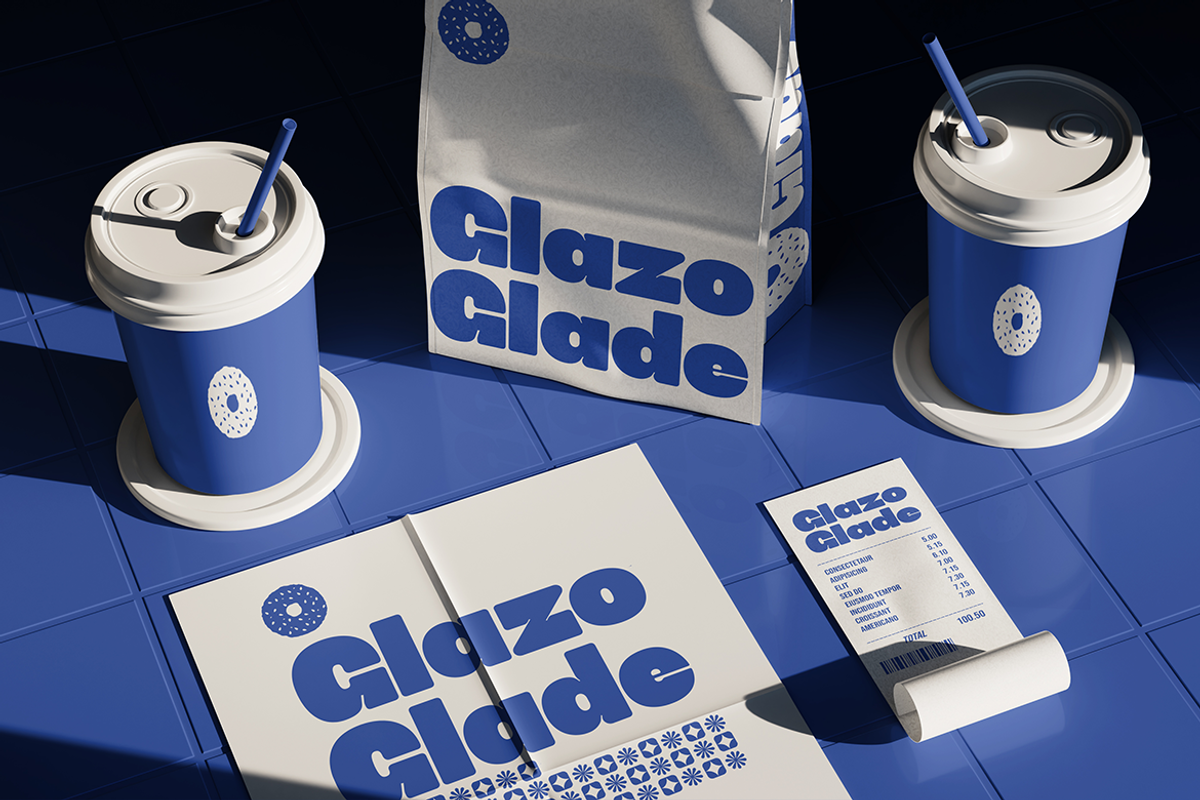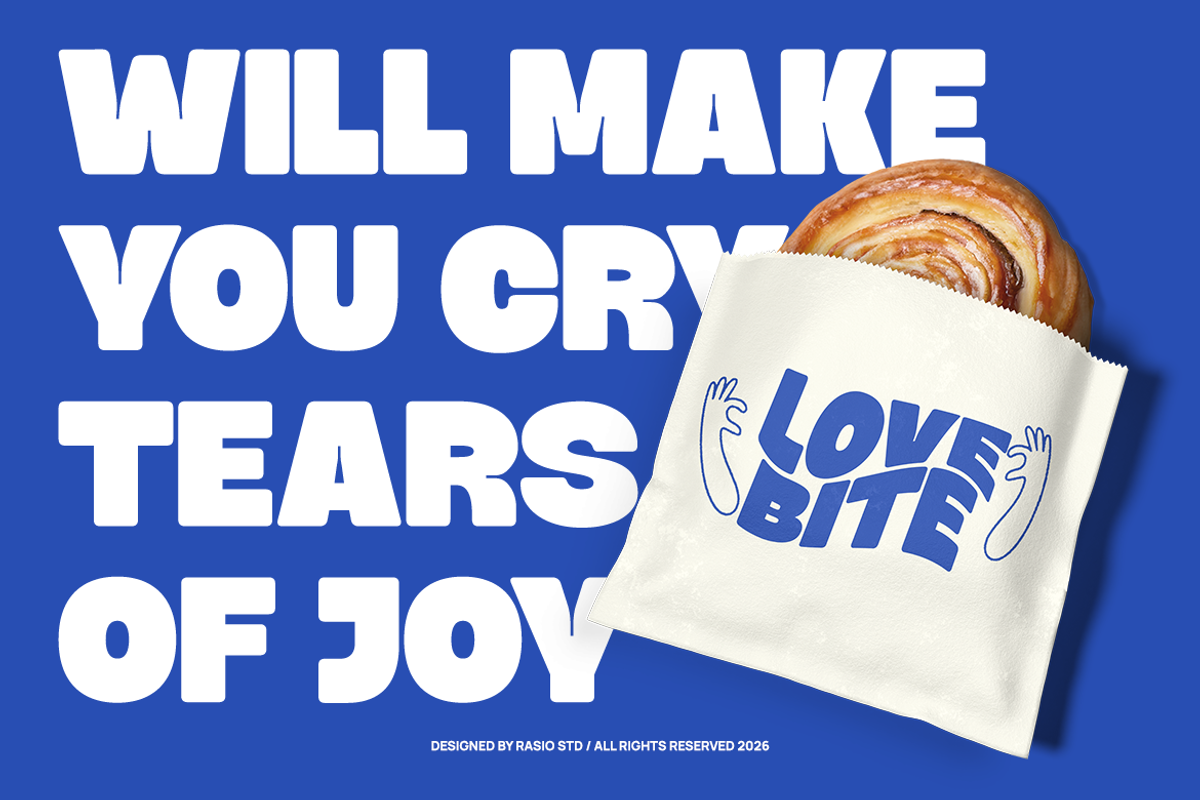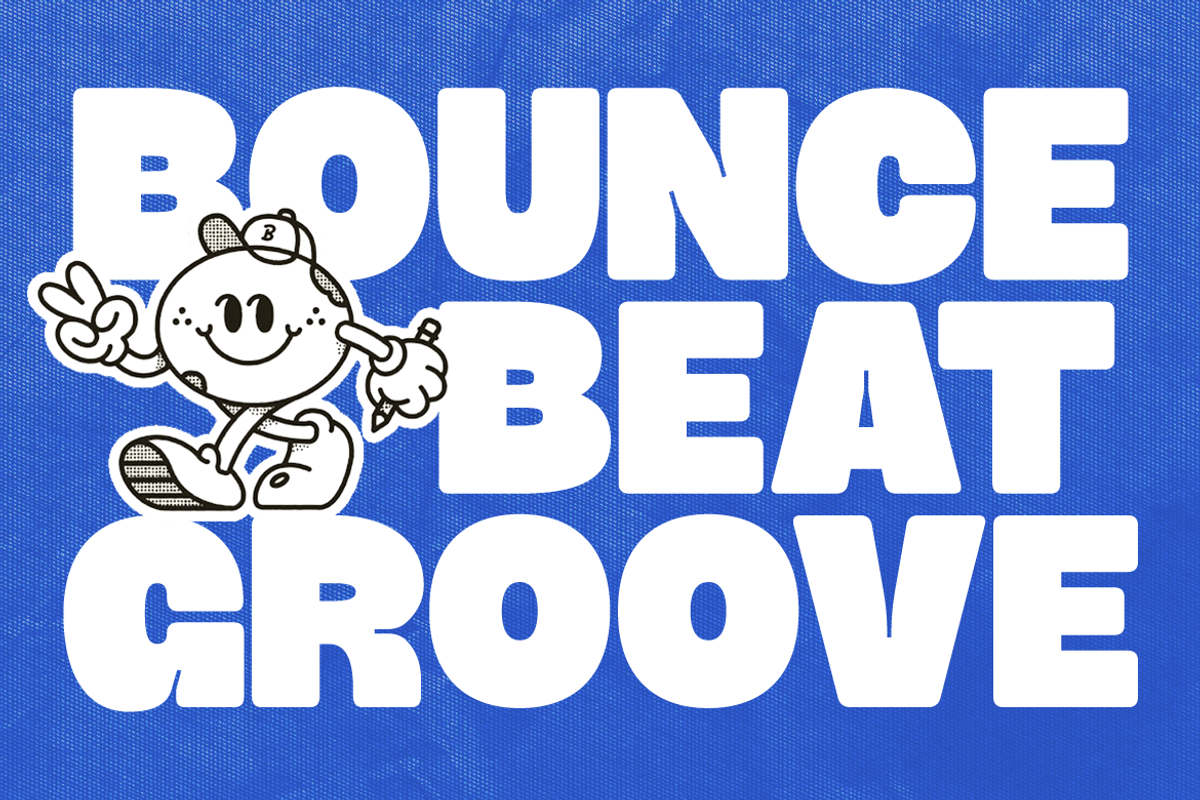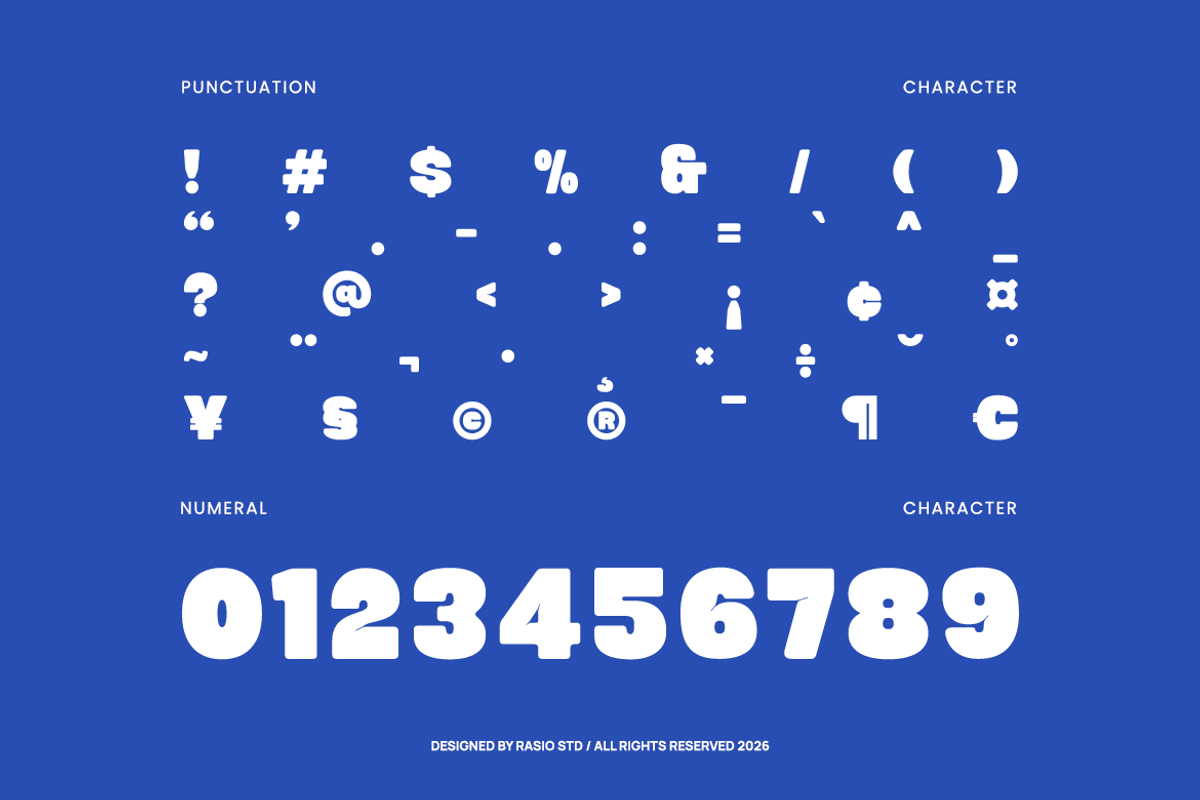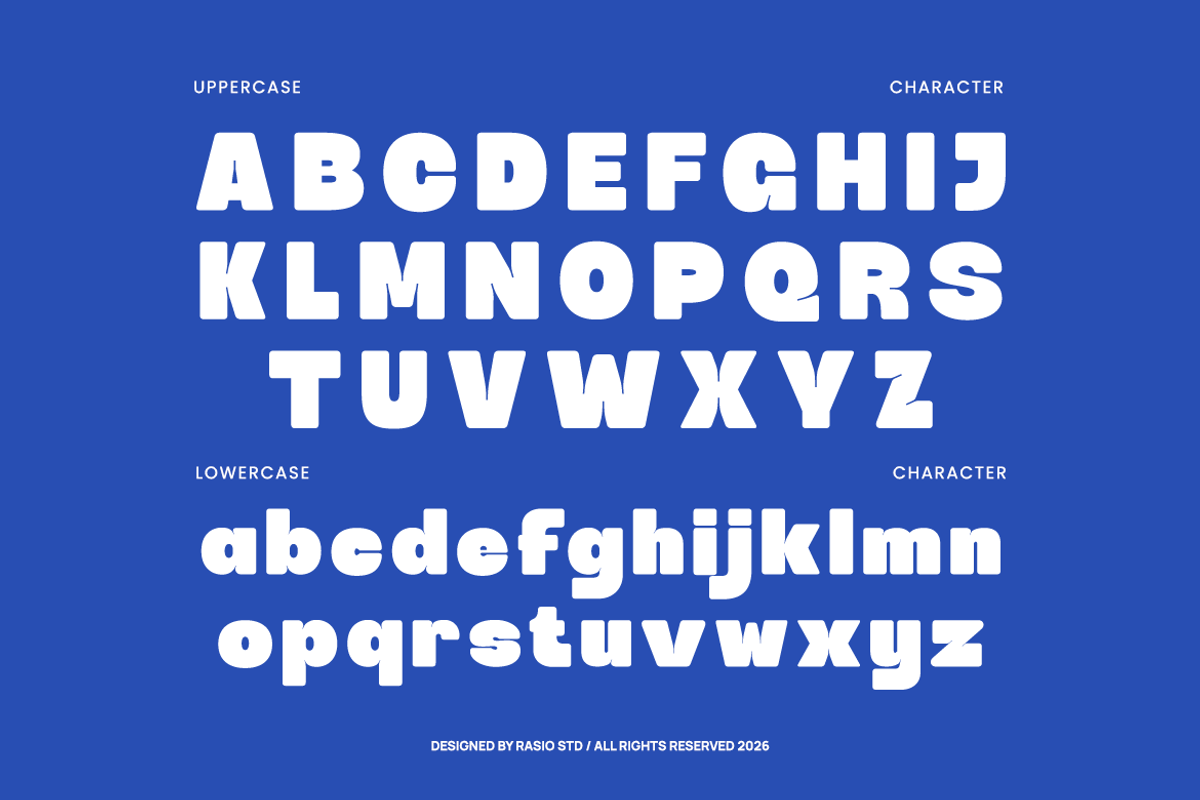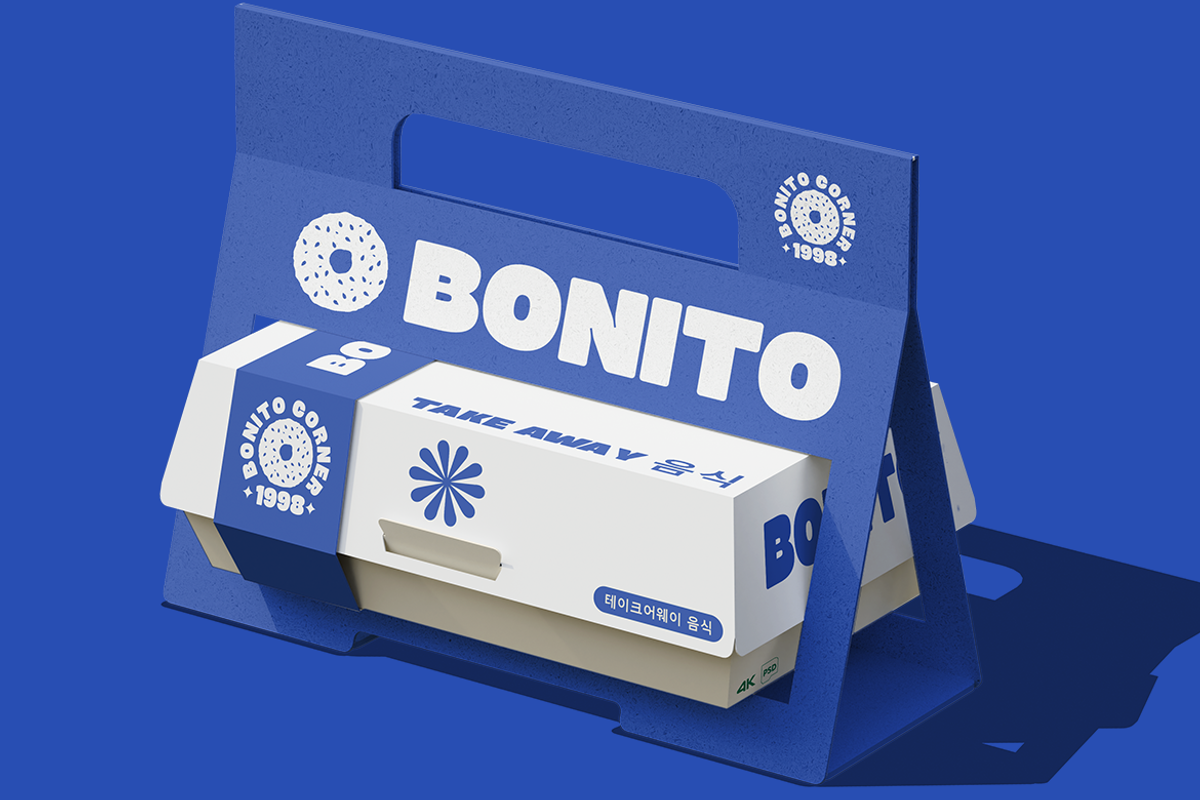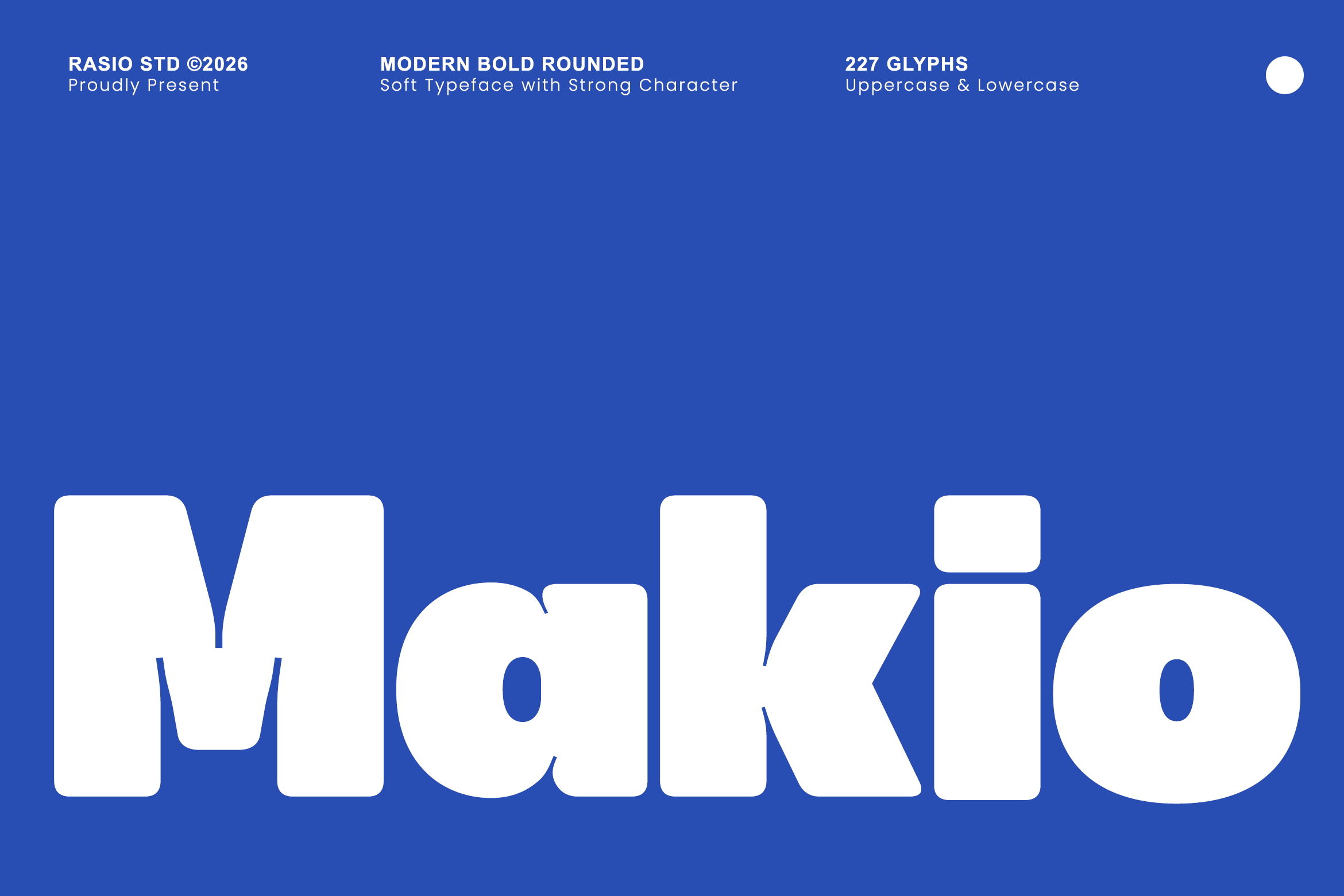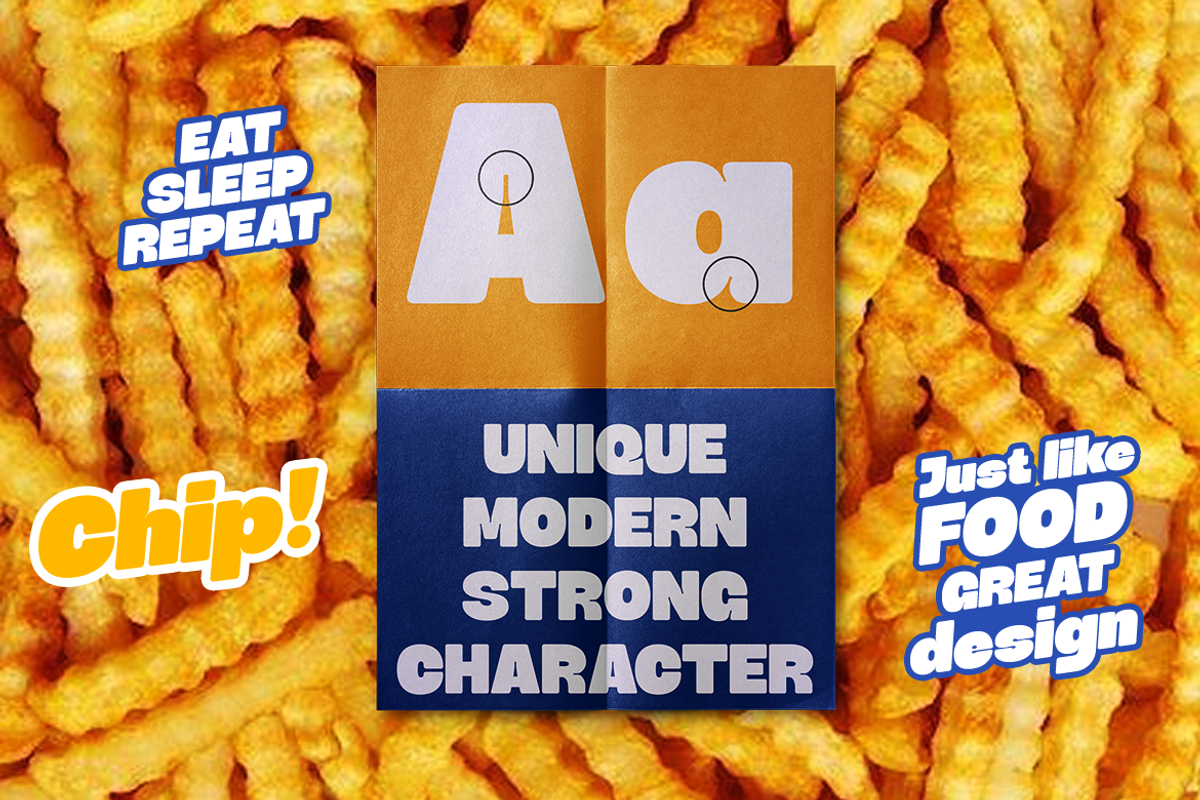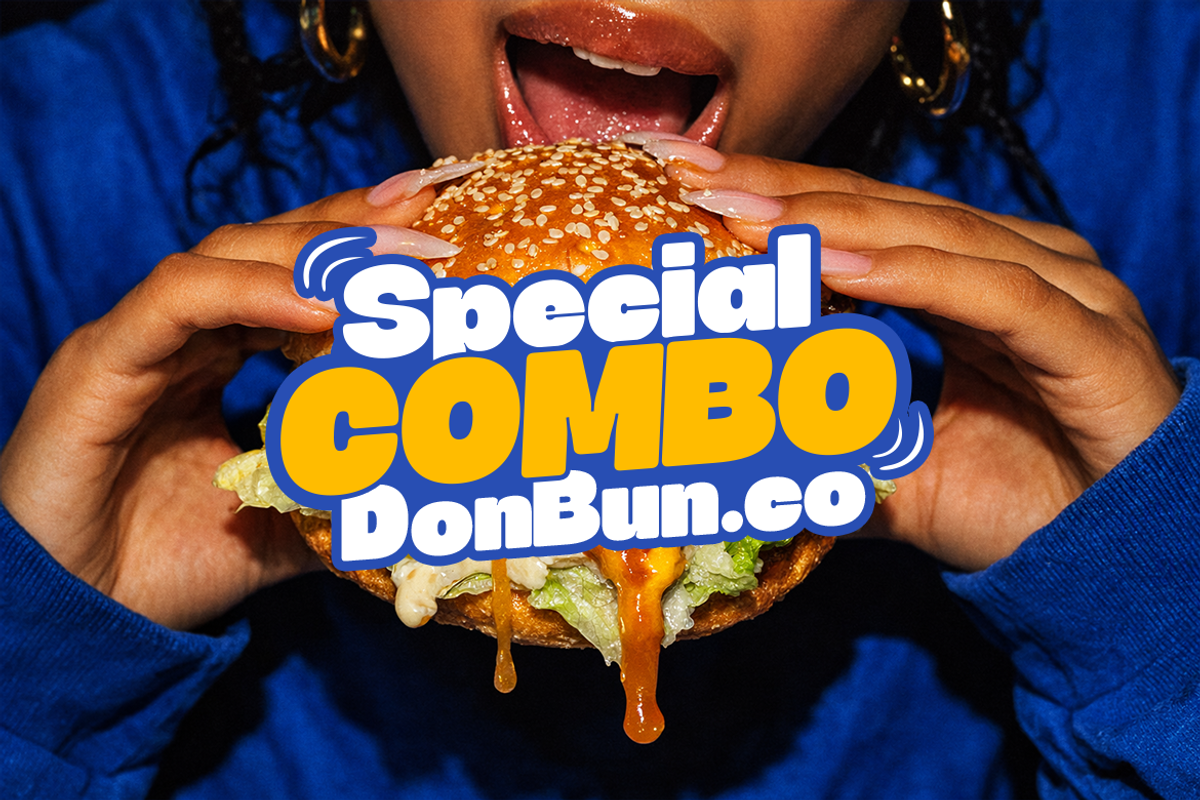
Makio Modern Bold Rounded Font
Makio showcases a bold rounded display style with soft curves and strong visual weight. The letterforms feature smooth edges, chunky proportions, and playful geometry that create a friendly and expressive appearance. Its consistent thickness and compact spacing enhance readability while maintaining a fun and modern character. Includes uppercase, lowercase, numerals, punctuation.
Relevance and Use Cases is perfect for fast food branding, playful logos, cartoon illustrations, toy packaging, game titles, social media content, poster designs, merchandise graphics, sticker designs, comic visuals, YouTube thumbnails, and fun creative projects that need a bold and friendly typographic style.
- Bold rounded structure with soft, cushion-like letterforms
- Thick stroke weight for strong visual presence and impact
- Smooth curves and fully rounded terminals for a friendly tone
- Playful geometric proportions with balanced consistency
- Compact spacing optimized for bold headlines and short text
- Kids branding and playful brand identity systems
- Game design, mobile game UI, and entertainment visuals
- Toy packaging, product labels, and fun merchandise design
- Cartoon illustrations, comics, and character-based projects
- Social media content, posters, and eye-catching promotional graphics
Create fun eye-catching designs with Makio a bold rounded font full of personality